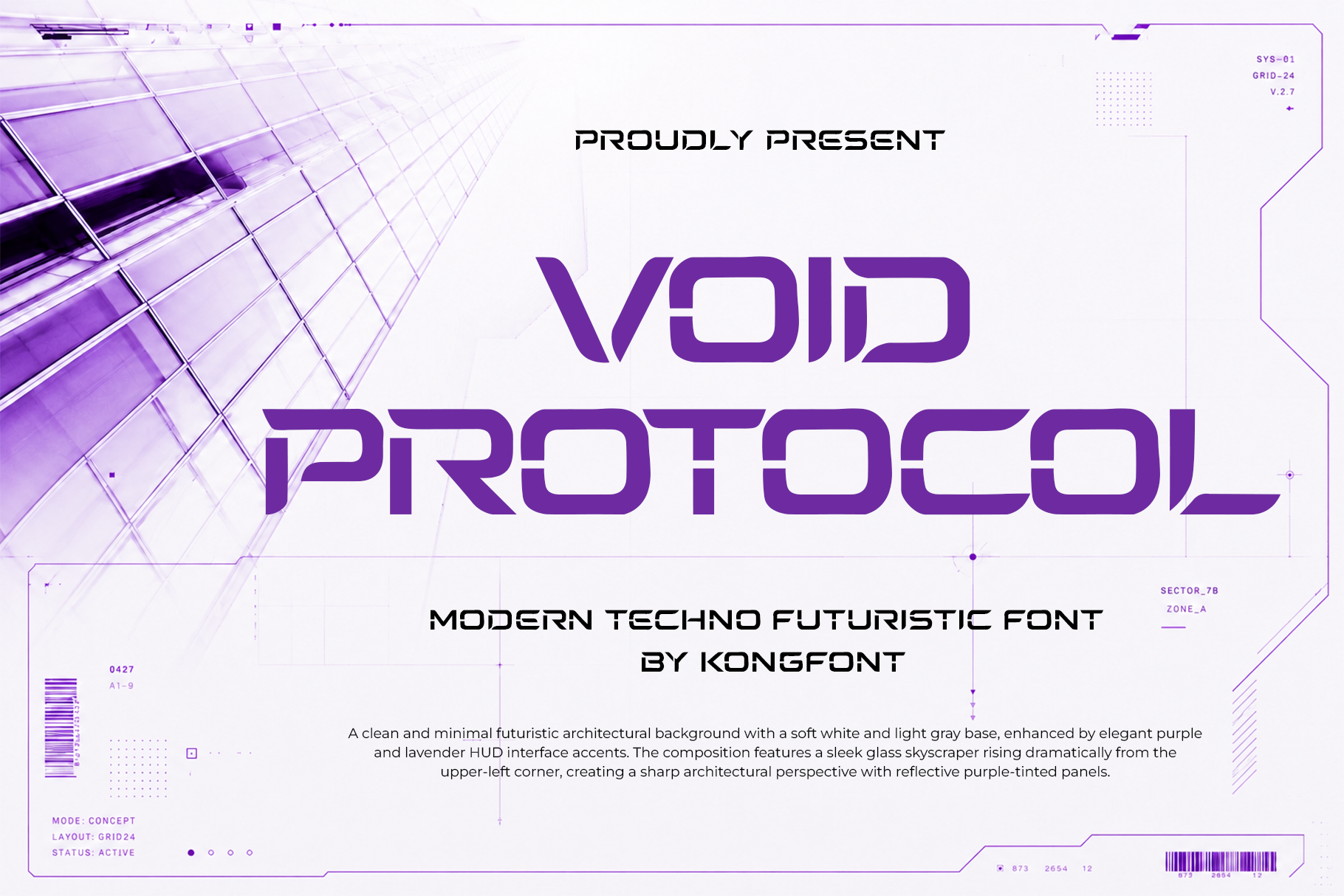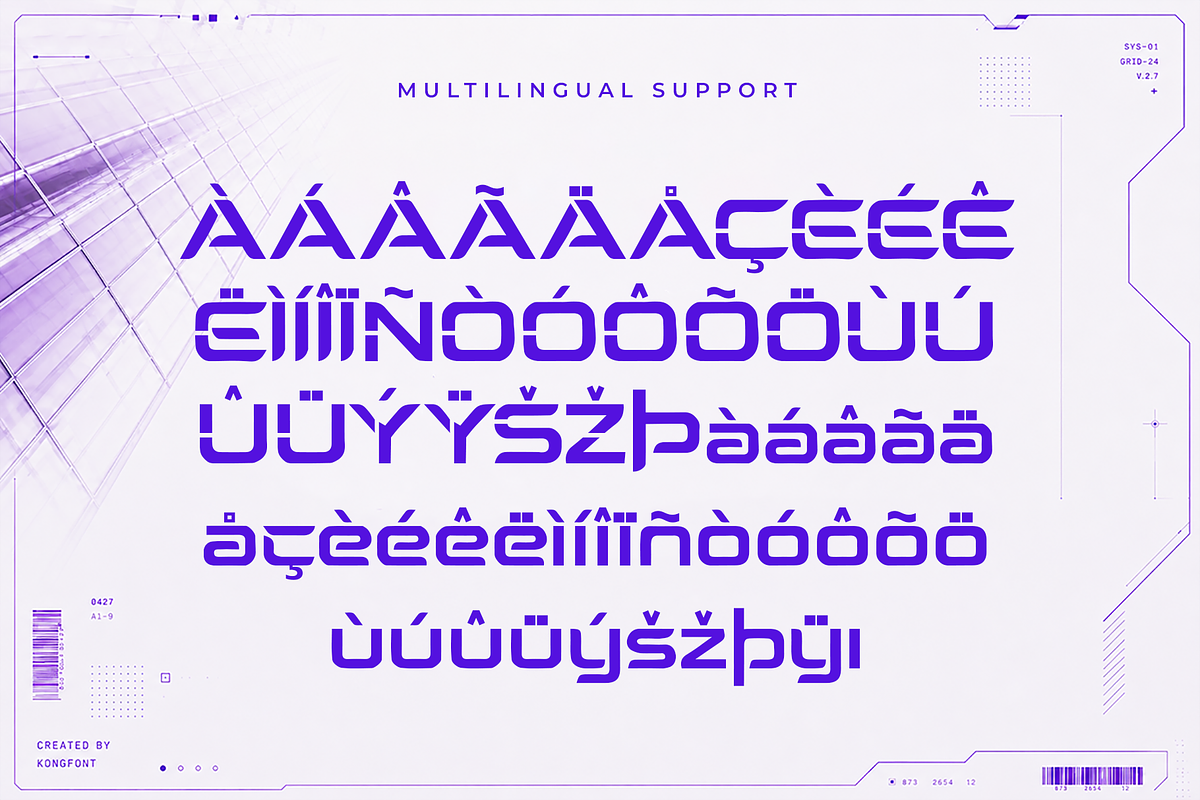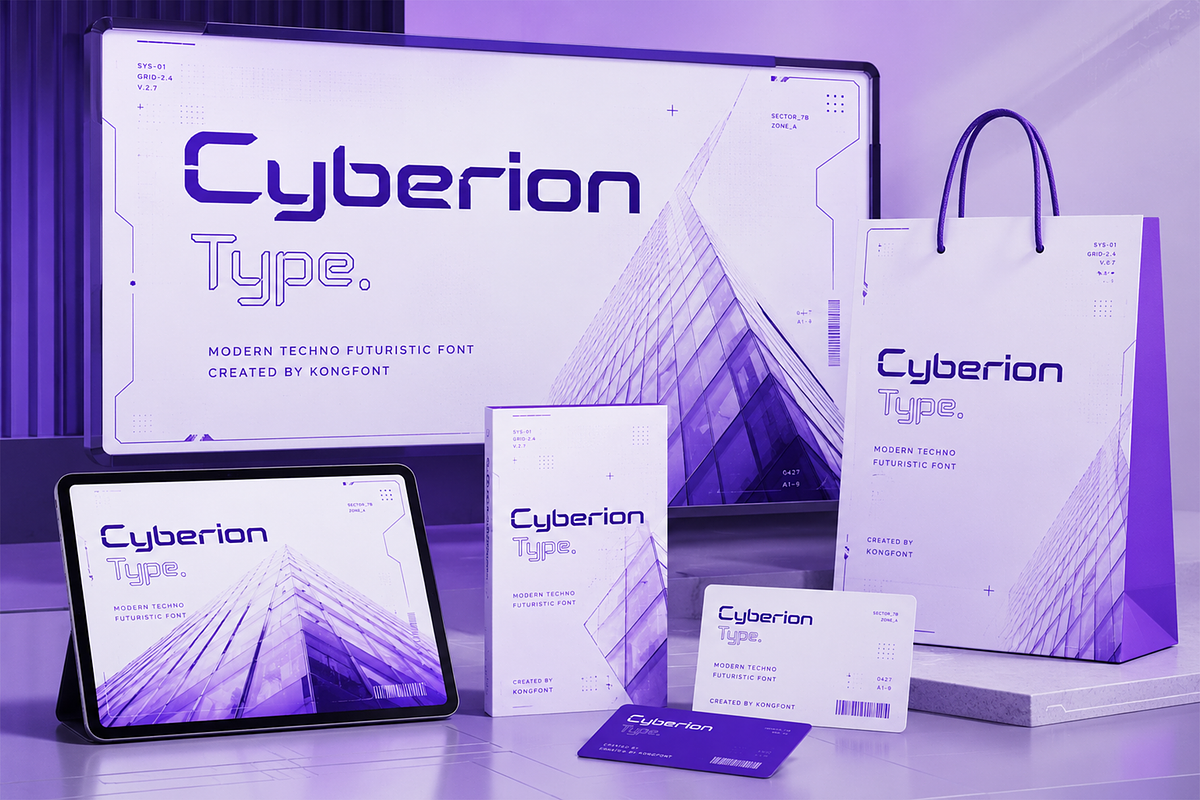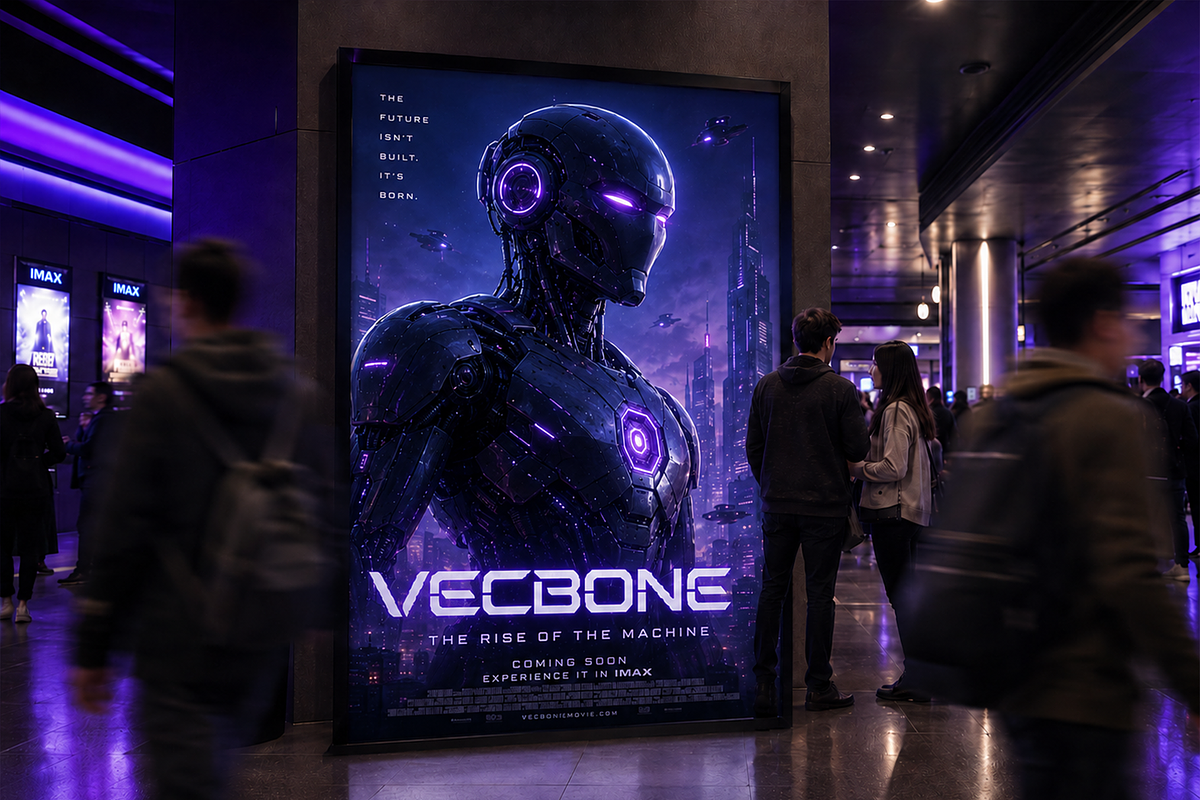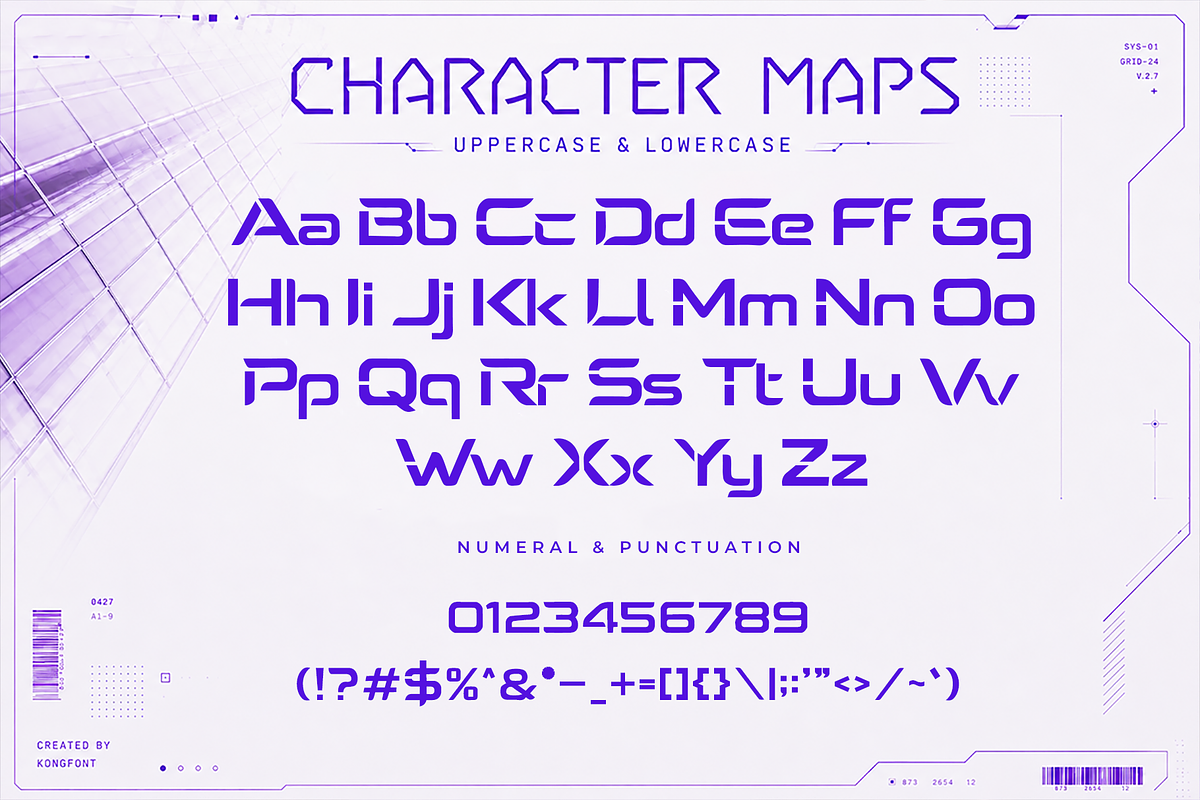
Void Protocol - Modern Display Font
Void Protocol - Modern Techno Futuristic Display Font
Meet "Void Protocol," a modern techno futuristic display font built for bold ideas, advanced technology, and high-impact visual communication. Featuring geometric letterforms, sharp cuts, sleek curves, and a strong digital personality, Void Protocol delivers a distinctive sci-fi aesthetic that instantly gives designs a futuristic edge.
Void Protocol is perfect for technology branding, gaming graphics, esports identities, movie titles, sci-fi posters, album covers, futuristic packaging, automotive designs, product interfaces, digital campaigns, websites, apparel, and experimental editorial layouts. Its bold construction helps typography remain memorable while maintaining a modern and professional presence.